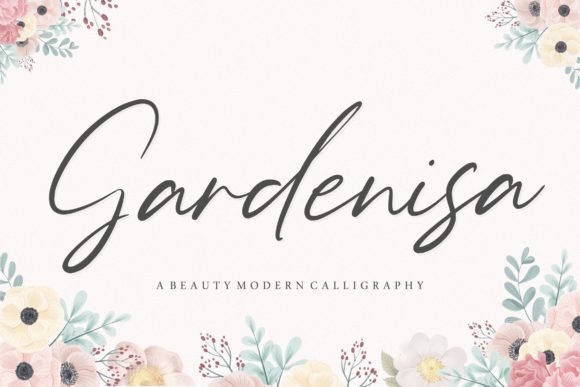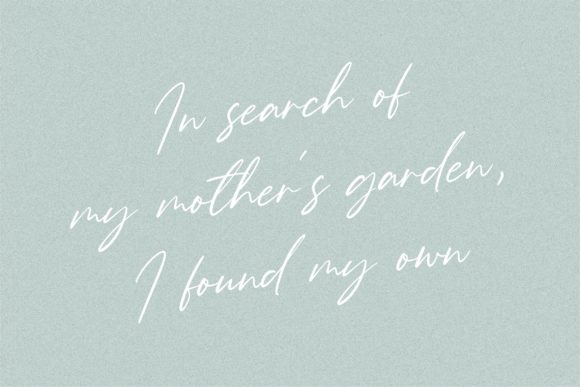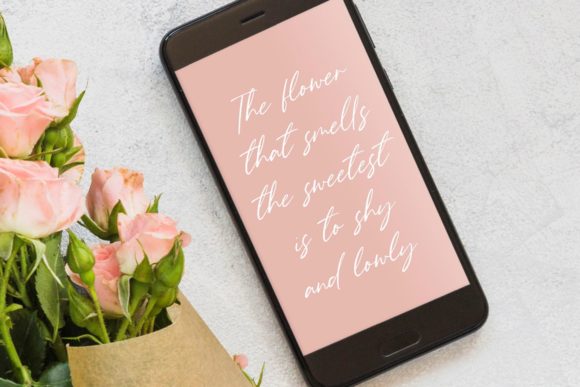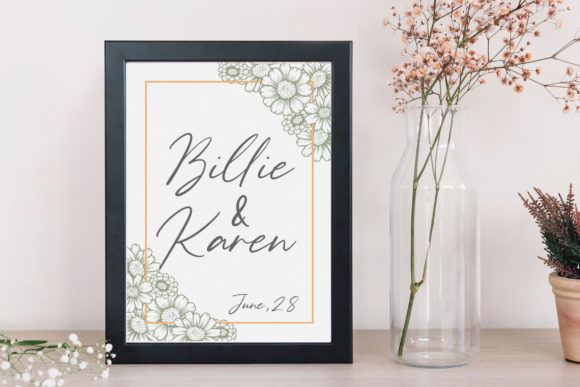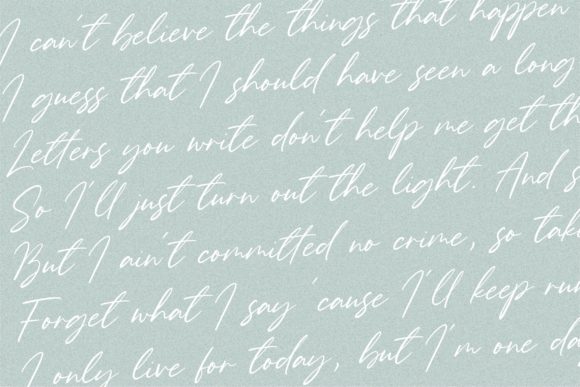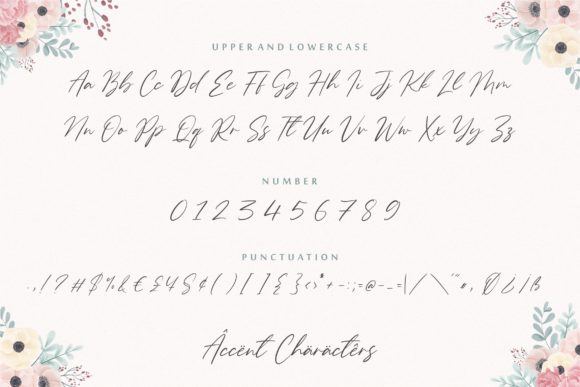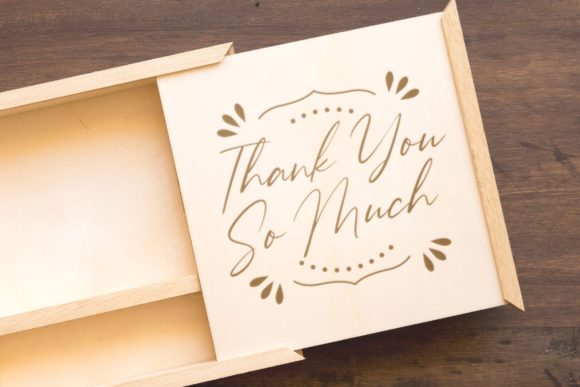
Adding a Touch of Whimsy with Gardenisa Font
There’s something magical about holding a beautifully crafted invitation in your hands, feeling the weight of the paper and the care that’s gone into every detail. For designers, it’s that moment of connection with the recipient that makes all the hard work worth it. And when it comes to creating that special touch, few fonts are as enchanting as the Gardenisa Font.
Gardenisa Font is a stunning script font that adds a handwritten charm to any design. Its elegant curves and flowing lines make it perfect for wedding invitations, thank you cards, and quotes, but its versatility also makes it a great choice for logos, business cards, and other designs that require a personal touch. Whether you’re a seasoned designer or just starting out, Gardenisa Font is a valuable addition to your toolkit.
Gardenisa Font Key Features
- Character Count: This font family consists of 200 characters, including uppercase and lowercase letters, numerals, and special characters.
- Unique Characteristics: This font features a unique blend of modern and organic elements, with flowing curves and geometric shapes that create a sense of elegance and sophistication.
Gardenisa Font Review
Gardenisa Font is a beautiful, elegant script font that’s perfect for adding a touch of sophistication to your designs. ✨ I love the way the letters flow and the subtle flourishes that give it a handmade feel. It’s a great choice for logos, invitations, and other designs where you want to convey a sense of luxury and refinement.
- ✨ Elegant and sophisticated feel
- ✨ Perfect for logos, invitations, and other high-end designs
- ✨ Great for adding a touch of handmade charm
However, there are a few limitations to consider. ⚠️ The font can be quite ornate, which may make it difficult to read at smaller font sizes. Additionally, the font may not be suitable for designs where you need a lot of text to be readable at a glance. Finally, the font may require some additional formatting to get it to work perfectly in certain design programs.
Gardenisa Font is a beautiful and elegant script font that’s perfect for adding a touch of sophistication to your designs. While it may have some limitations, I think it’s a great choice for designers who want to create high-end, luxury designs.
Tips for Getting the Most Out of Gardenisa Font
Gardenisa Font is a beautiful, elegant script font that is perfect for wedding invitations, branding, and other creative projects. To get the most out of it, try using it in combination with other elegant fonts, and don’t be afraid to experiment with different font sizes and colors to achieve a unique look.
Gardenisa Font is commonly used in wedding invitations, branding, and other creative projects that require an elegant and sophisticated look. It’s also great for use in titles, headings, and body text where a beautiful, flowing font is